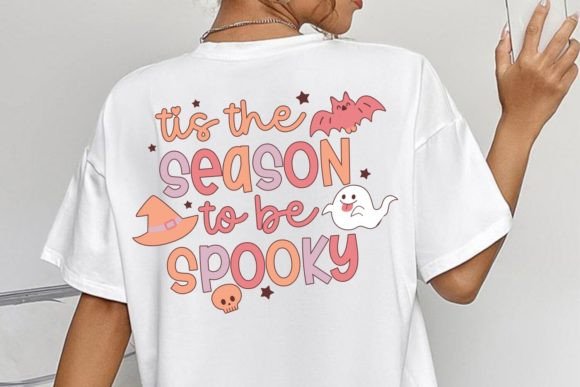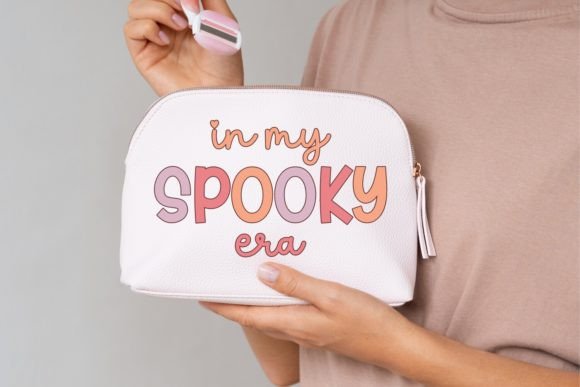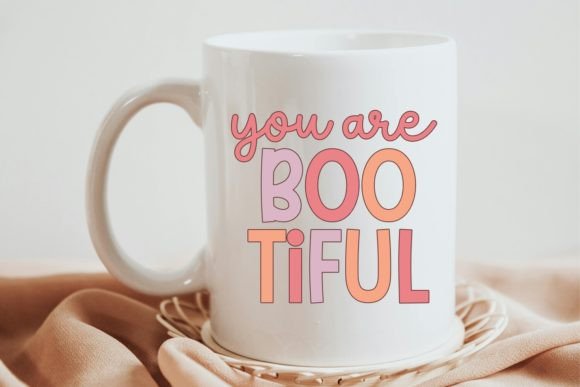
Introduction to Scary Girls Font
Unleash a mystic charm on your craft projects with Scary Girls, a Halloween-centric typeface radiating with delightful hand-drawn whimsy.
This vivacious typeface bravely marries the beguiling appeal of graveyards and ghouls with a touch of light-hearted mirth, making it a favorite among crafting connoisseurs for its superior legibility See your creations awaken with a captivating air of gentle spookiness.
Key Features of Scary Girls Font